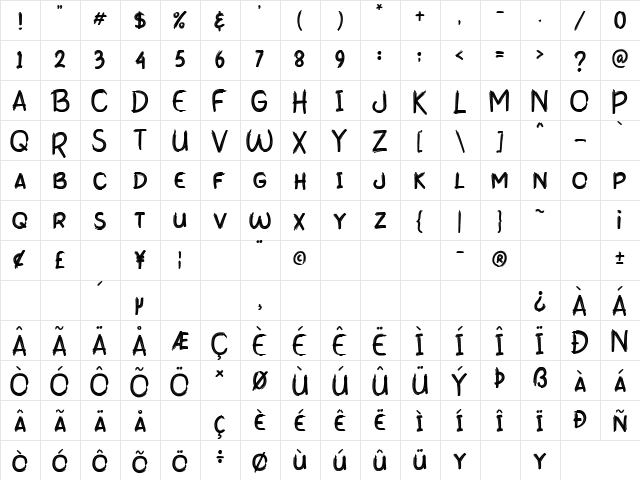
Brush Town Regular
| Designer | Muhammad Sirojuddin |
Design Context for Brush Town Typeface
Brush Town flows with the natural rhythm of handwritten lettering, making it ideal for designs that call for warmth and personal expression.